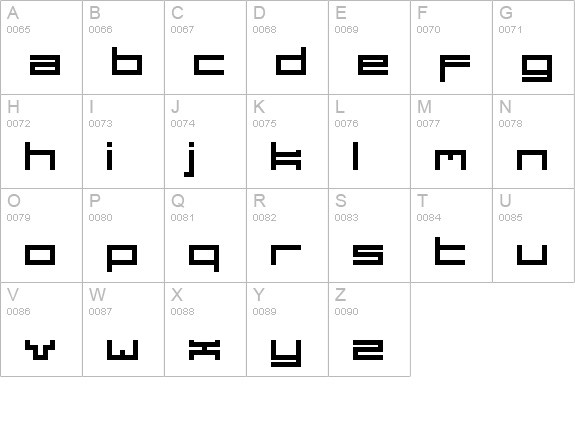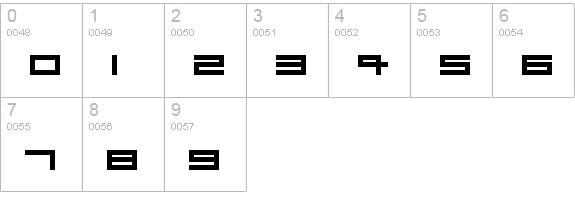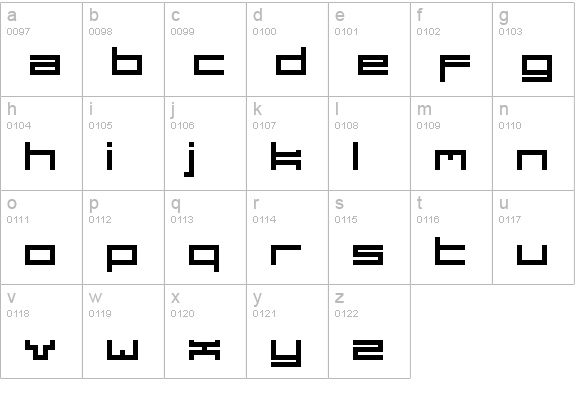
Dubsteptrix Font Details
Dubsteptrix is a free for personal use font in the Modern > Techno category, designed by Darrell Flood. It has been downloaded 138 times and is available for Windows, Mac and Linux.
Dubsteptrix font is a modern and edgy typeface that perfectly captures the dynamic and energetic essence of dubstep music. With its sharp angles and futuristic style, Dubsteptrix font is sure to make your designs stand out from the crowd. This versatile font is ideal for creating eye-catching posters, album covers, and promotional materials. Best of all, Dubsteptrix font is available for free download at FontsMarket.com. Don't miss out on adding this unique font to your collection today!